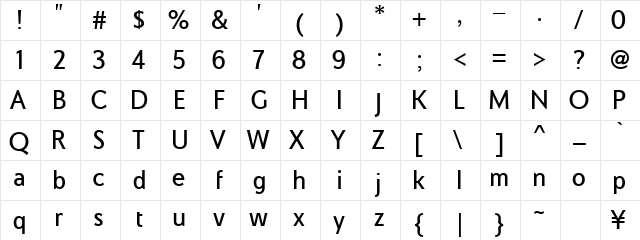
COM4t Sans Medium Regular
Design Context for COM4t Sans Medium Typeface
COM4t Sans Medium offers clean, dependable letterforms without strong stylistic allegiance, making it a practical choice for designers who need flexibility.